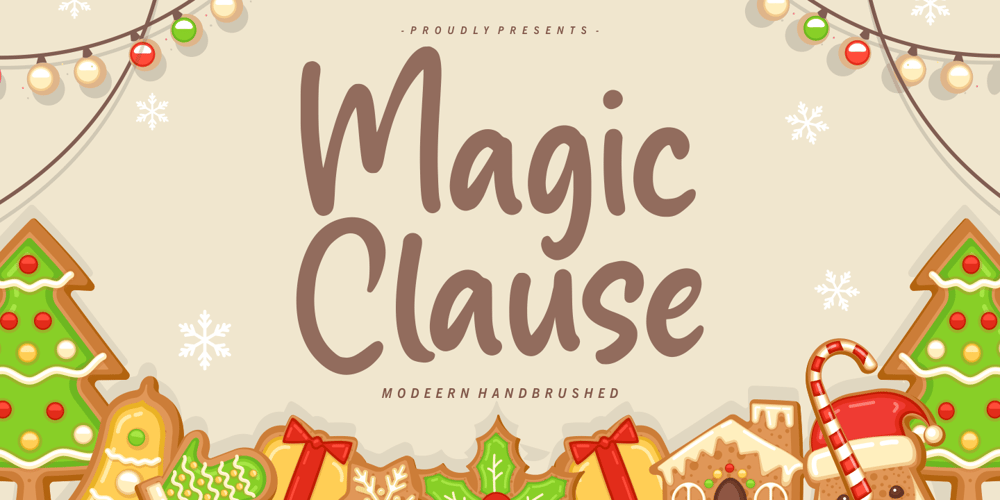
Magic Clause Font Family was designed by Restu Angga and published by Balpirick. Magic Clause contains 1 styles and family package options. Magic Clause is a Modern Handbrushed Font.Magic Clause is a cute and friendly handwritten font. Get creative with its childlike playfulness, and use it to Magic Clause also multilingual support.Enjoy the font, feel free to comment or feedback, send me PM or email.Thank you!